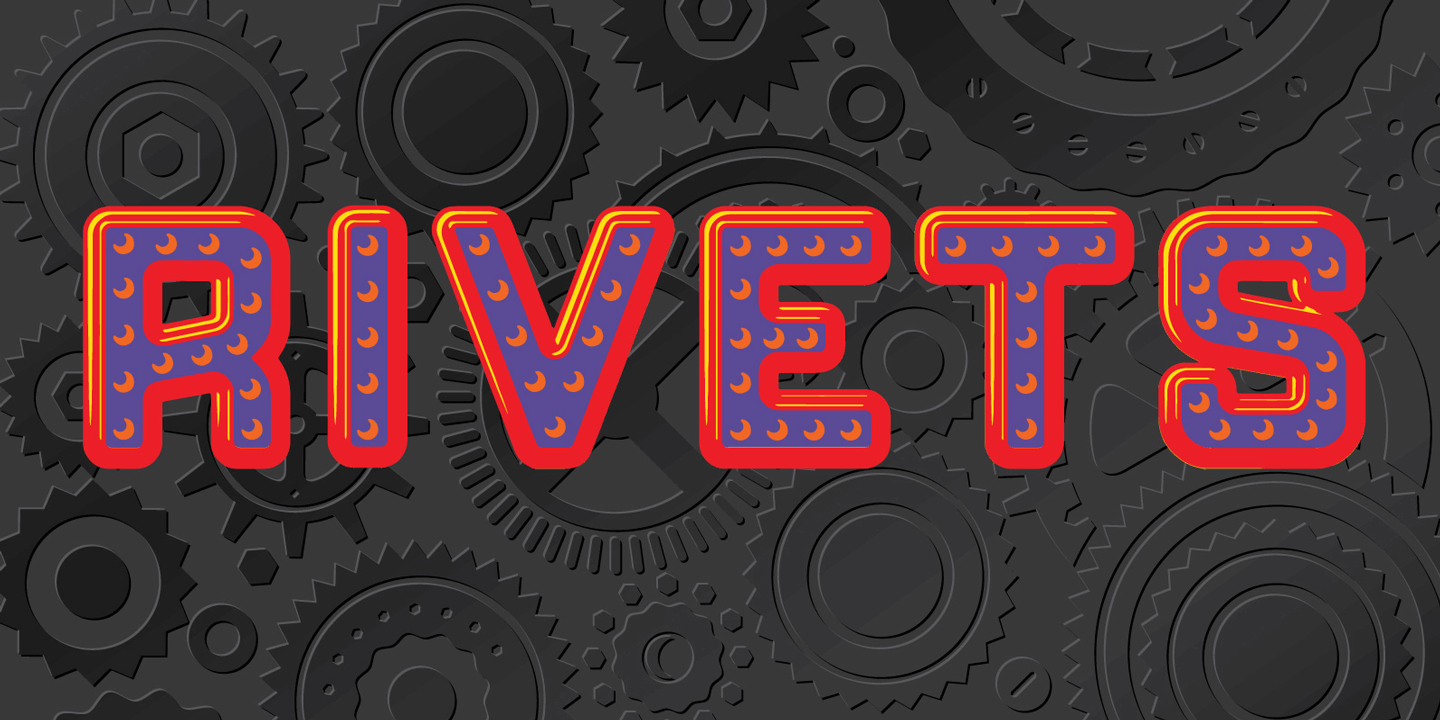
Rivets
About Rivets
Rivets is a result of my fascination with the beauty I find in utilitarian industrial objects like the riveted stanchions in New York subway stations, decorative ironwork in Grand Central terminal and the eloquent construction details of the urban infrastructure…